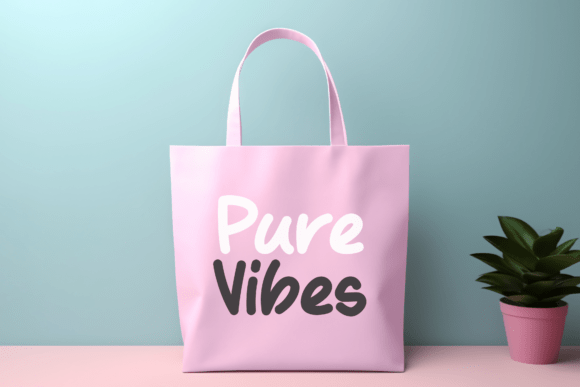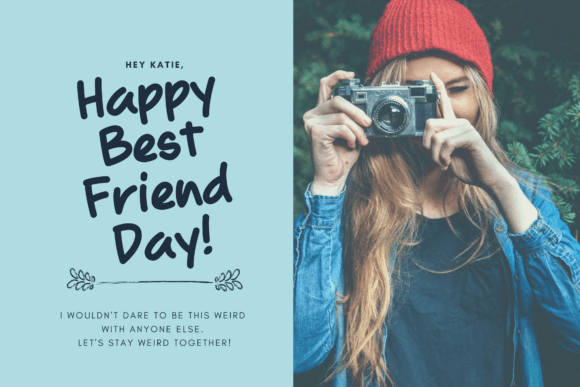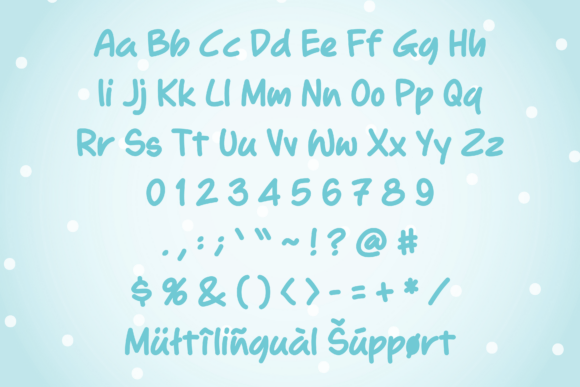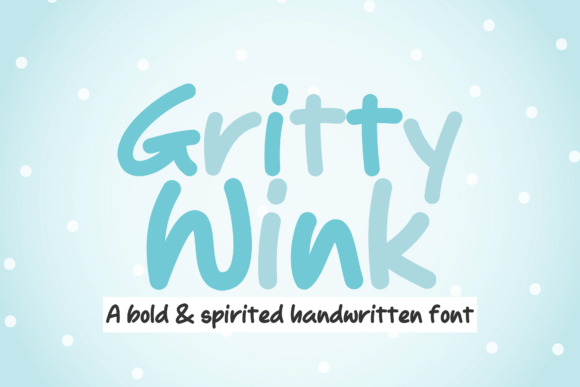
Introducing Grittywink Font: The Perfect Blend of Boldness and Charm
In the world of typography, a font can make or break a design. It’s the foundation upon which creativity is built, and the right choice can elevate a project from ordinary to extraordinary. For designers and crafters looking for a font that exudes confidence, personality, and a touch of uniqueness, Grittywink Font is an excellent choice. This bold and confident handwritten font is designed to make your creations stand out without feeling overly polished.
What Makes Grittywink Font Stand Out?
Grittywink Font boasts a clean yet natural and unique style that sets it apart from other fonts. Its bold and confident appearance makes it perfect for designs that require a statement piece. The font features both uppercase and lowercase letters, providing versatility and flexibility for various design applications. Whether you’re working on greeting cards, craft projects, logos, or social media posts, Grittywink font adds a touch of charm and personality to your creations.
Key Features of Grittywink Font
- Bold and Confident: Grittywink Font has a strong and assertive presence, making it ideal for designs that need to make a statement.
- Clean and Natural Style: The font’s clean lines and natural appearance give it a unique and refreshing look.
- Uppercase and Lowercase Letters: Grittywink Font features both uppercase and lowercase letters, providing flexibility for various design applications.
- Perfect for Various Projects: The font is suitable for greeting cards, craft projects, logos, social media posts, and more.
Why Choose Grittywink Font?
For designers and crafters, finding the right font can be a daunting task. Grittywink Font offers a perfect blend of boldness, confidence, and charm, making it an excellent choice for various design projects. Here are some reasons why you should consider Grittywink Font for your next project:
- Easy to Read: Despite its bold appearance, Grittywink Font is easy to read, making it perfect for designs that require a clear and concise message.
- Versatile: The font’s versatility allows you to use it for various design applications, from digital projects to print materials.
- Unique Style: Grittywink Font’s unique style sets it apart from other fonts, ensuring your designs stand out from the crowd.
- Time-Saving: With Grittywink Font, you can save time and effort in finding the perfect font for your project, allowing you to focus on the creative process.
How to Use Grittywink Font in Your Designs
Using Grittywink Font in your designs is straightforward and easy. Here are some tips to get you started:
- Pair it with Other Fonts: Experiment with pairing Grittywink Font with other fonts to create a unique and visually appealing design.
- Adjust Font Size: Adjust the font size to suit your design needs, from large headings to smaller text.
- Play with Colors: Experiment with different colors to find the perfect combination that complements your design.
In conclusion, Grittywink Font is an excellent choice for designers and crafters looking for a bold, confident, and charming font. Its unique style, versatility, and ease of use make it perfect for various design applications. Whether you’re working on a greeting card, craft project, logo, or social media post, Grittywink Font is sure to add a touch of personality and charm to your creations. So, why not give Grittywink Font a try and take your designs to the next level?
With Grittywink Font, you can:
- Create stunning greeting cards that stand out from the crowd.
- Add a touch of personality to your craft projects.
- Design logos that exude confidence and boldness.
- Elevate your social media posts with a unique and eye-catching font.